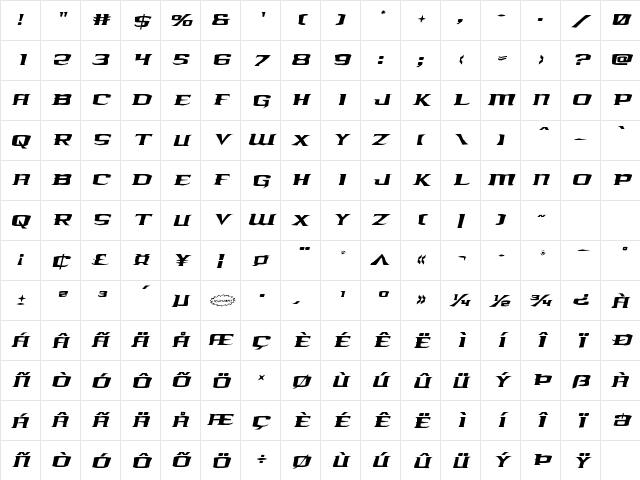
Complete Kreature Kombat Rough Italic Italic glyph index. Displaying only characters natively supported by Kreature Kombat Rough Italic Italic font.
Kreature Kombat Rough Italic embraces imperfection - its rough, textured character adds raw authenticity to designs that want to feel lived-in and unconventional. The slanted form adds forward momentum and visual energy.
Pro Tip: Use Kreature Kombat Rough Italic at larger sizes where the texture and irregularity of each letterform can be clearly seen - it loses its character at small sizes.